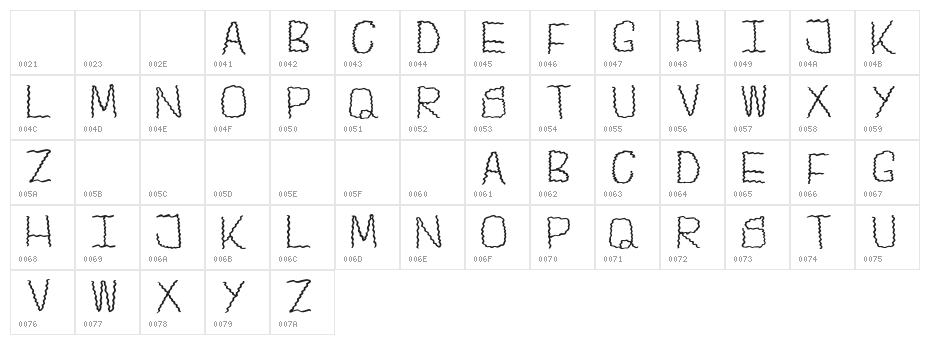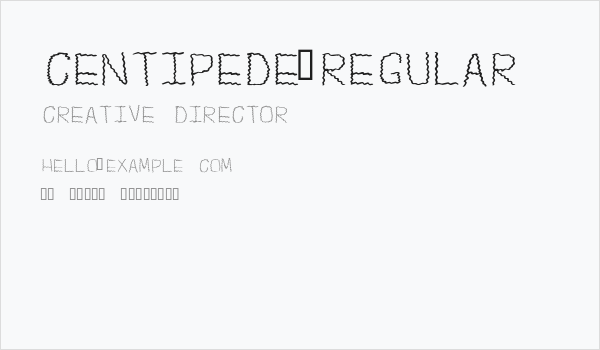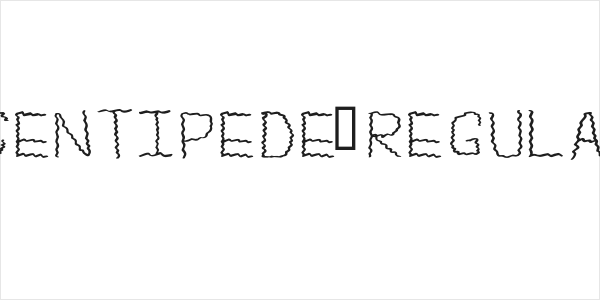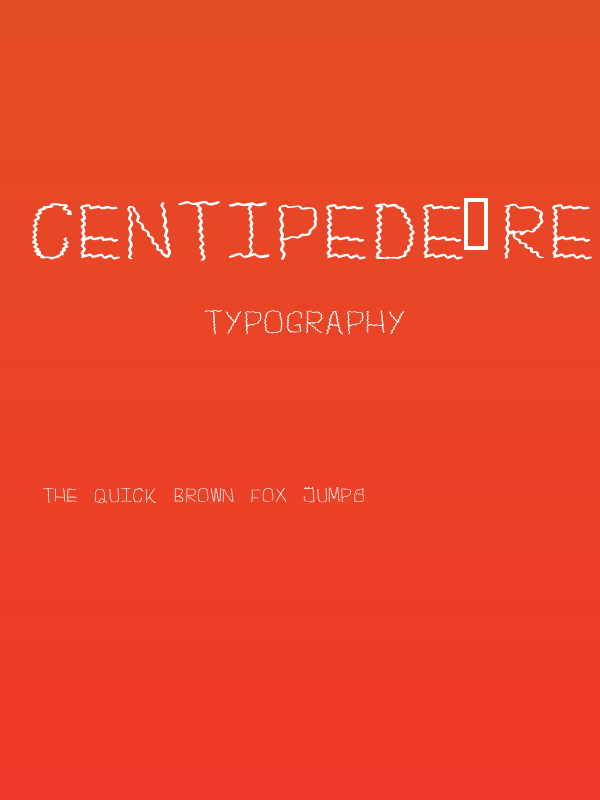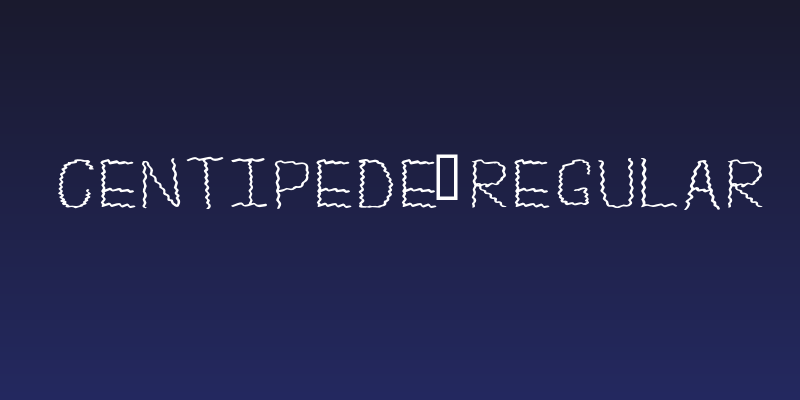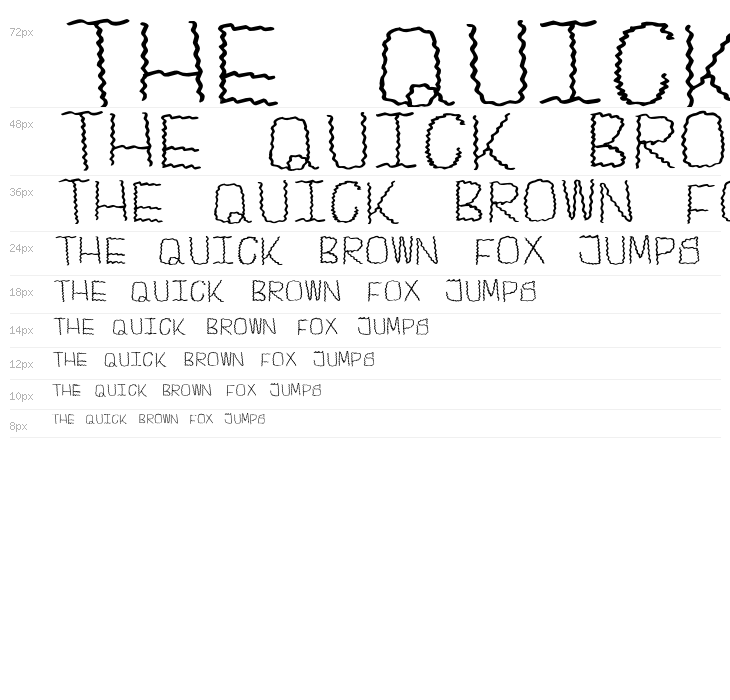
Centipede-Regular Font
Centipede-Regular Description
This font features a unique, wavy design that mimics the segmented appearance of a centipede. The characters are crafted with a playful, zigzag pattern that gives them a dynamic and lively feel. The uppercase and lowercase letters maintain a consistent style, with each character exhibiting a distinct, textured outline. The numbers and special characters follow the same design principles, ensuring uniformity across the font. This font's quirky and distinctive style makes it stand out, offering a creative twist on traditional typography.
| Proposed Projects | Ideal for creative projects such as children's books, playful branding, or unique poster designs. |